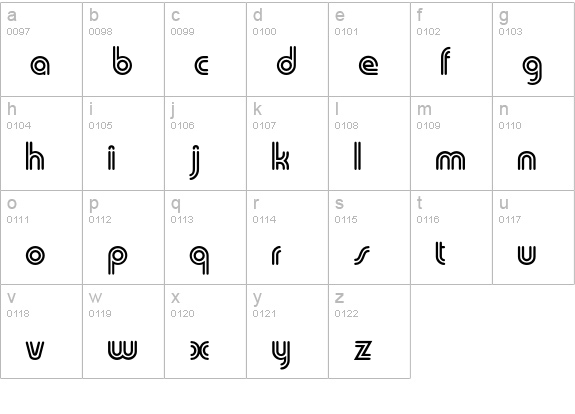
Skinny Font Details
Skinny font is a sleek and slender typeface that exudes elegance and sophistication. Its slim design creates a visually stunning effect, making it perfect for projects that require a refined touch. This font is a testament to minimalism, with its thin and delicate strokes that effortlessly flow across the page. With Skinny font, every word becomes a work of art. Whether it's for a logo, branding materials, or invitations, this font adds a touch of modernity and style. Its clean lines and graceful curves create a sense of harmony, making it a versatile choice for a wide range of design projects. One of the best parts about Skinny font is that it is available for free! You can easily download it at FontsMarket.com, where you will find a vast collection of high-quality fonts. This means you can add this stunning font to your creative toolbox without breaking the bank. The versatility of Skinny font extends beyond its aesthetic appeal. Its legibility ensures that your message is clear and easily understood, even when used in small sizes or on screens. Whether you're designing a website, creating a social media post, or putting together a presentation, this font will make your content stand out. So why wait? Enhance your designs with the elegance and sophistication of Skinny font. Download it for free at FontsMarket.com and let your creativity flow. With this font in your arsenal, your projects will captivate and inspire, leaving a lasting impression on your audience.